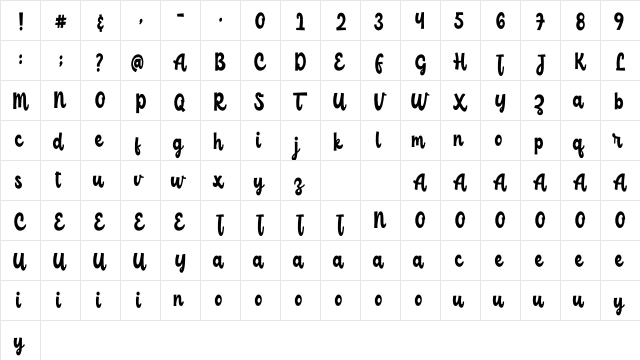
ChildishFree Regular
Design Context for ChildishFree Typeface
ChildishFree trades formality for fun, with bouncy, characterful letterforms that bring warmth and energy to any project.
Font Pairing: Pairs well with a rounded or humanist sans for body copy, maintaining the friendly tone without relying on ChildishFree to carry extended reading.
Pro Tip: Avoid using ChildishFree for long passages of text — it works best for headlines, labels, and short calls to action.